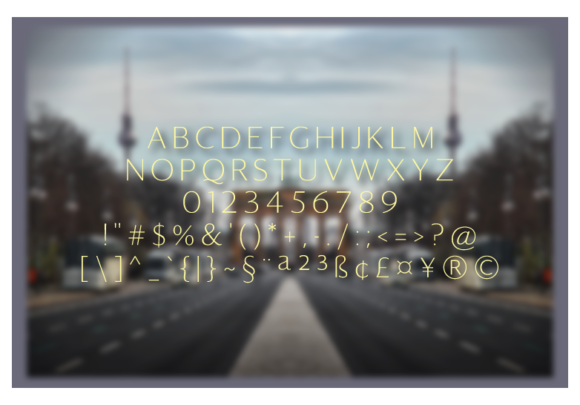
Introduction to Ludhovicf Extra Light Font
Ludhovicf blends traditional Spanish architectural elements with modern, minimalist design.
Its unique cut-ins & curves make it a true standout .
Key Features of Ludhovicf Extra Light Font